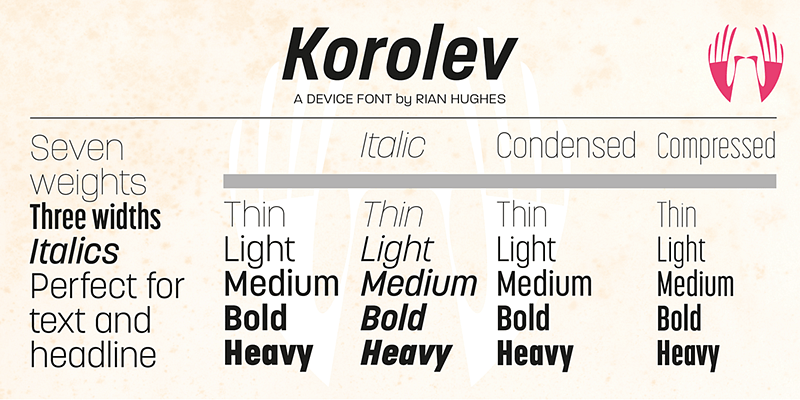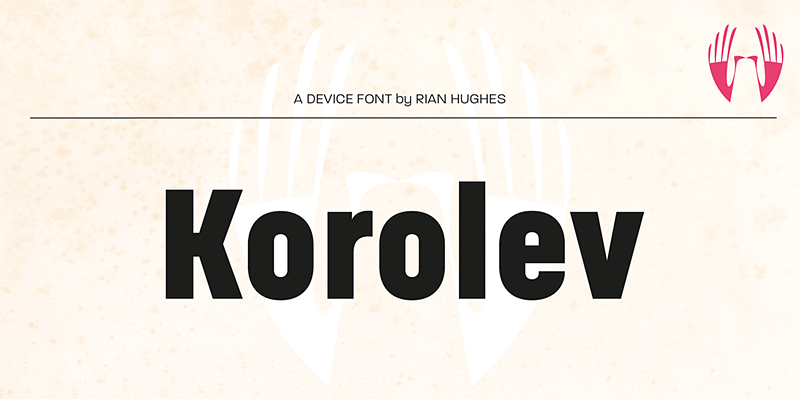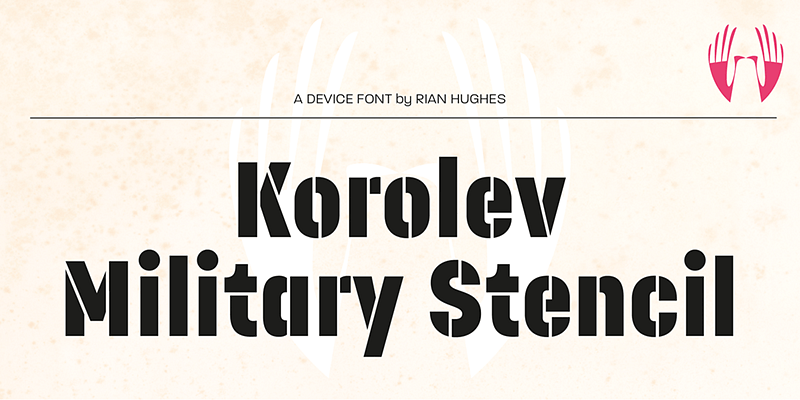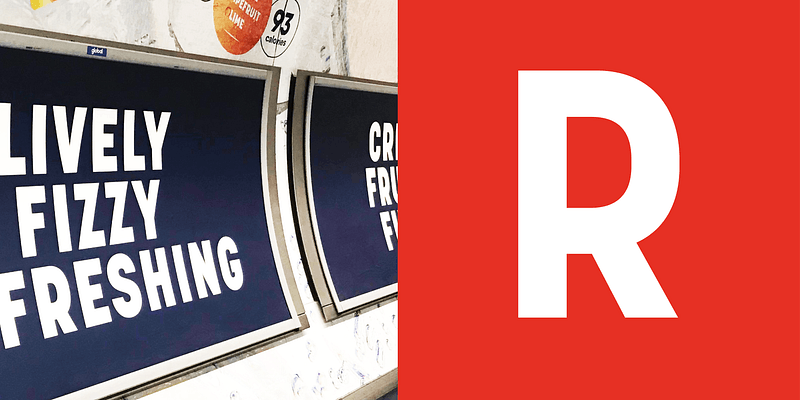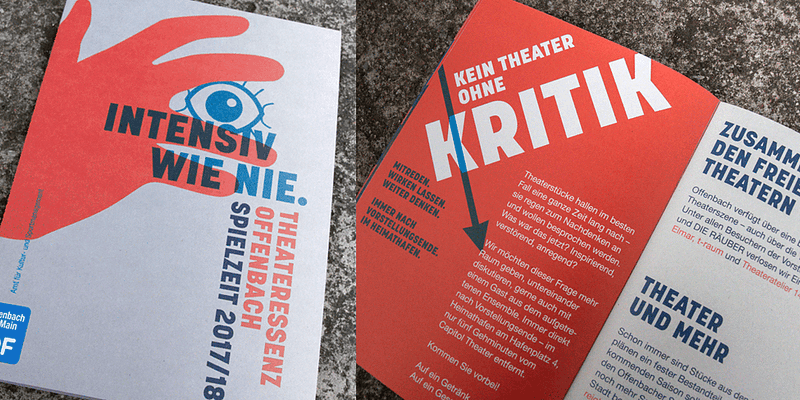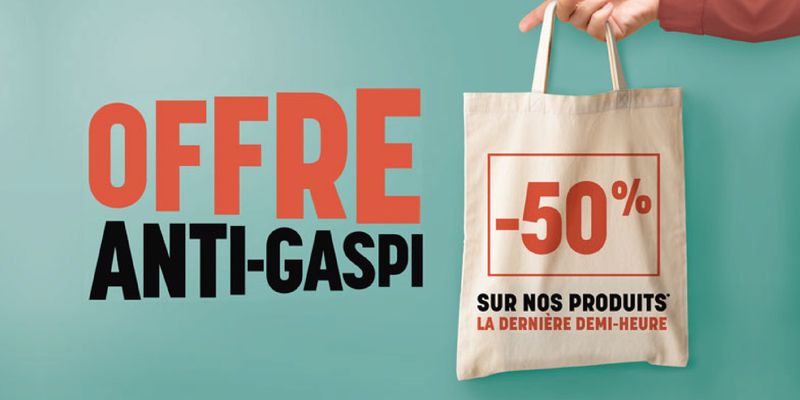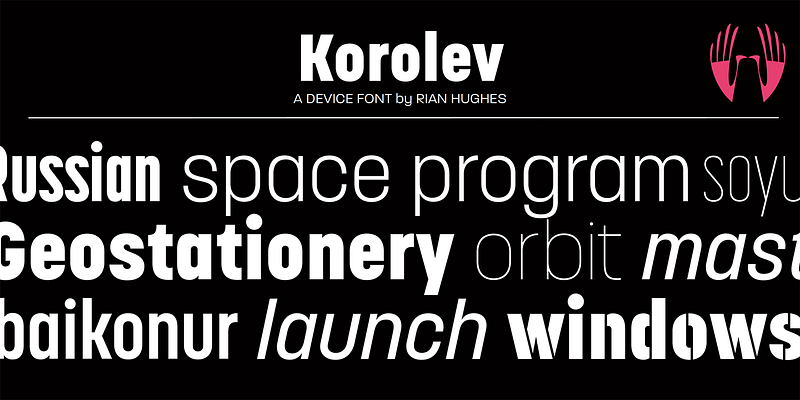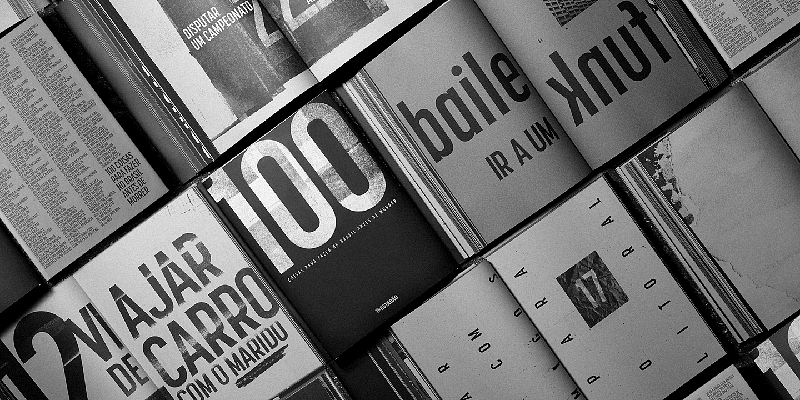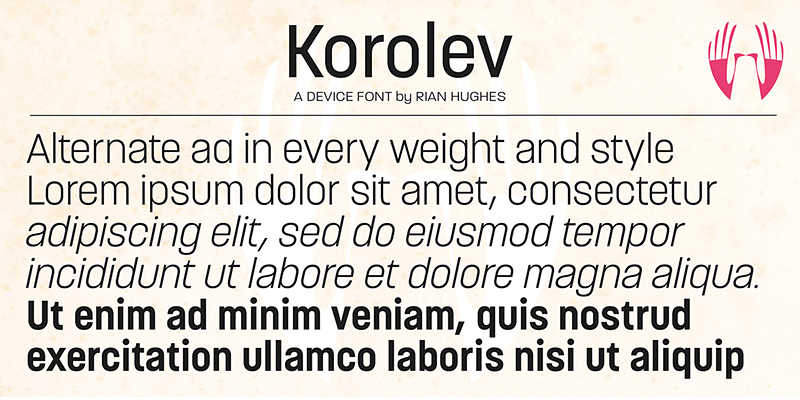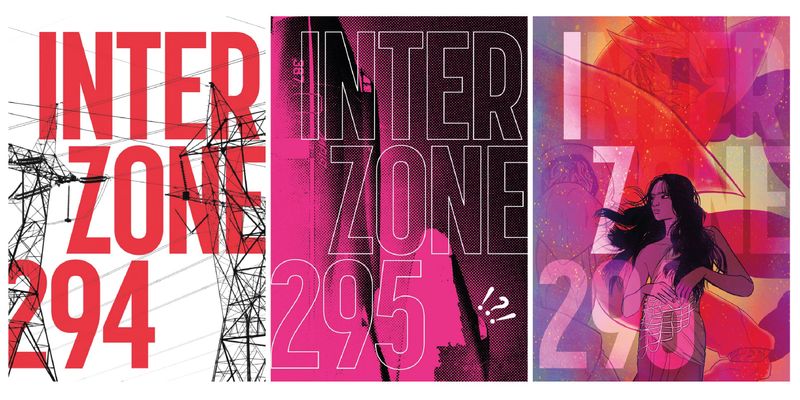
Based on an anonymous alphabet seen in photos of the Red Square Parades in the 30s, Korolev is a ruler-and-compass sans with an engineered elegance. The condensed weights and italics add up to a versatile family.
Type, design and imagery by English illustrator and typographer Rian Hughes.